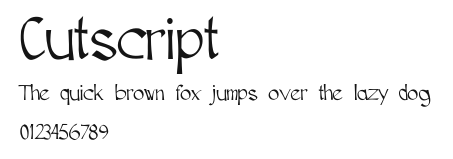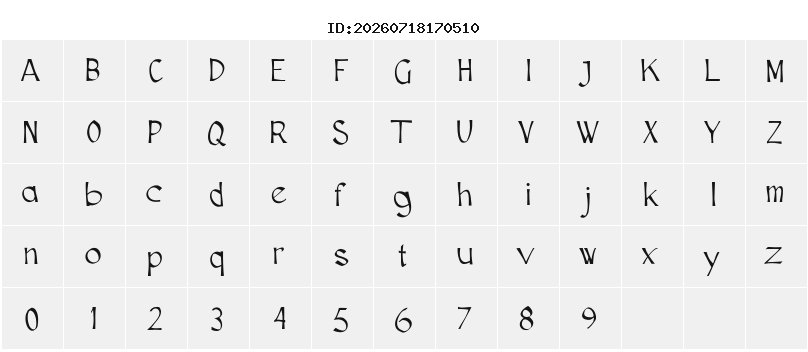
Cutscript Preview
• Font Name: Cutscript
• Full Font Name: Cutscript
• Designer: Måns Grebäck
• Manufacturer: Måns Grebäck
About Cutscript.ttf
Cutscript.ttf is a modern, elegant sans-serif font designed for ultimate readability and visual harmony. Perfect for branding, headlines, web design, and print materials.